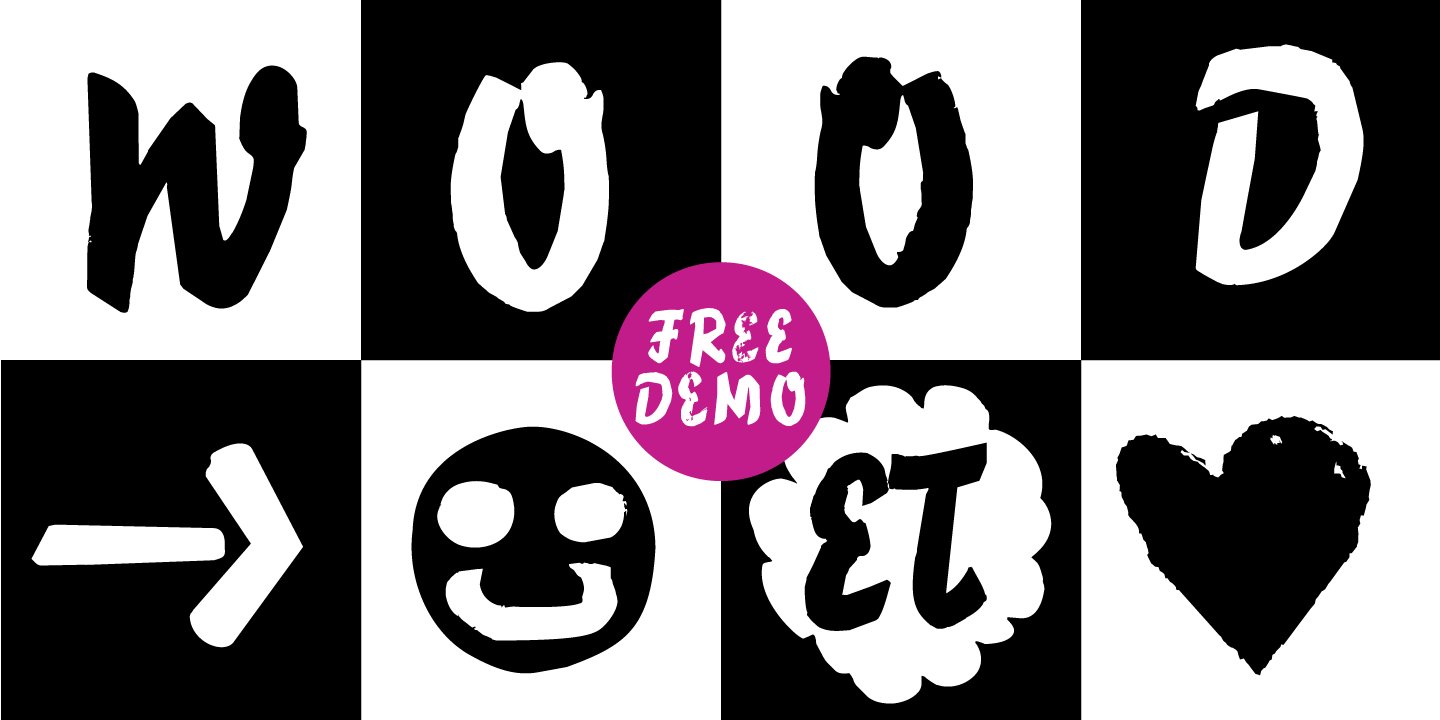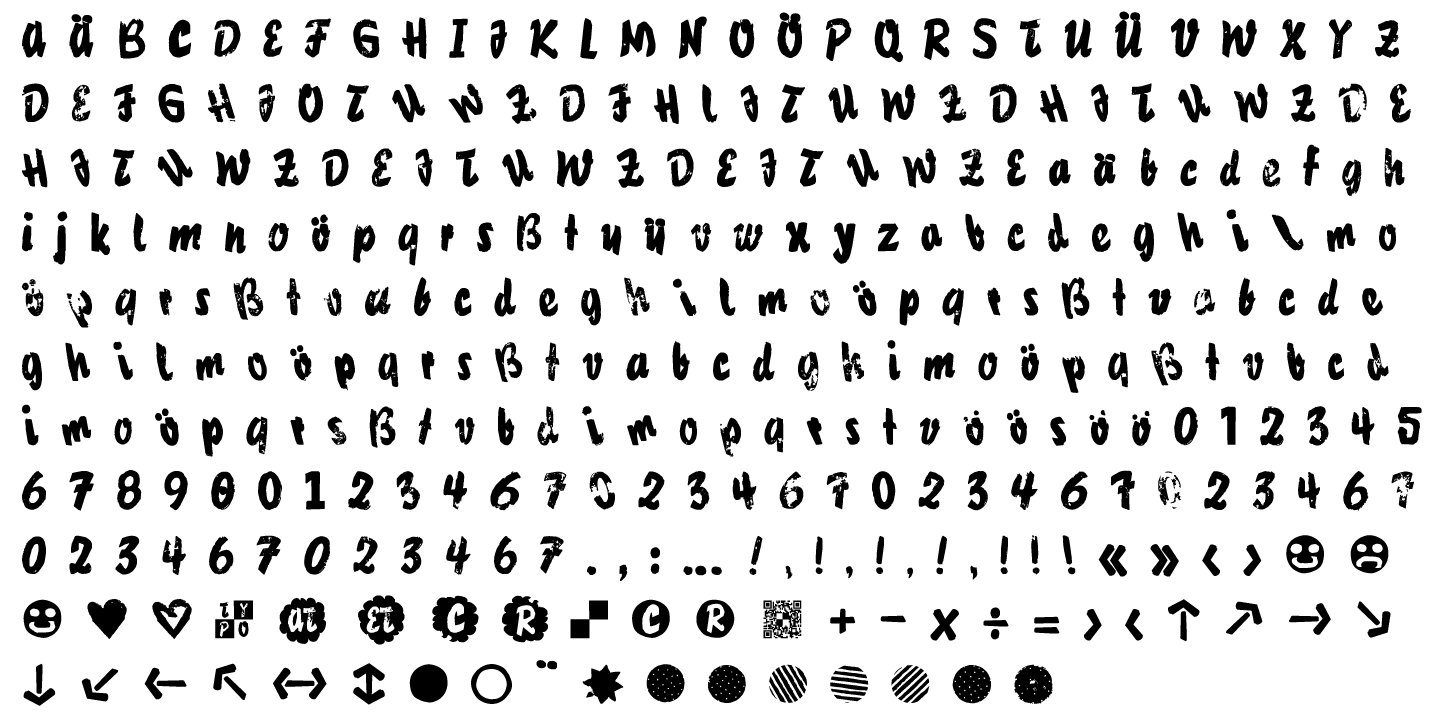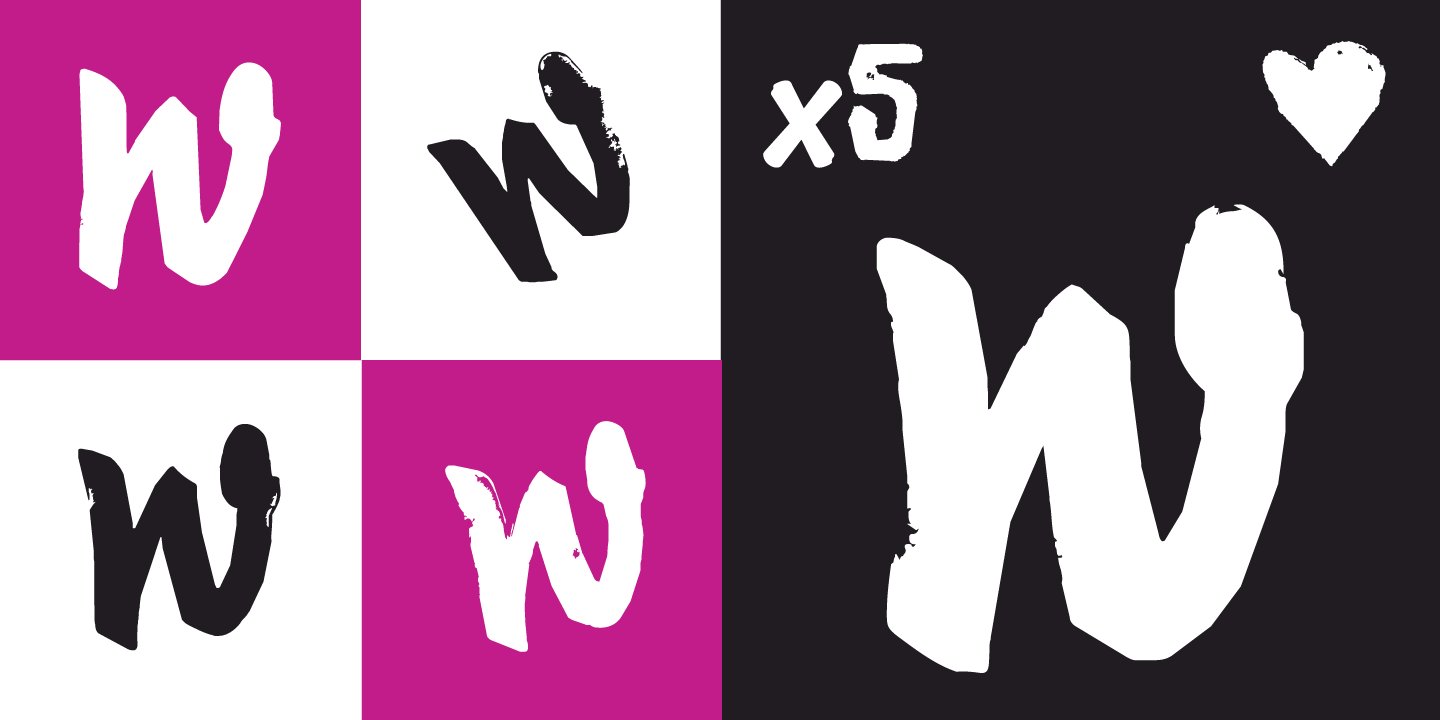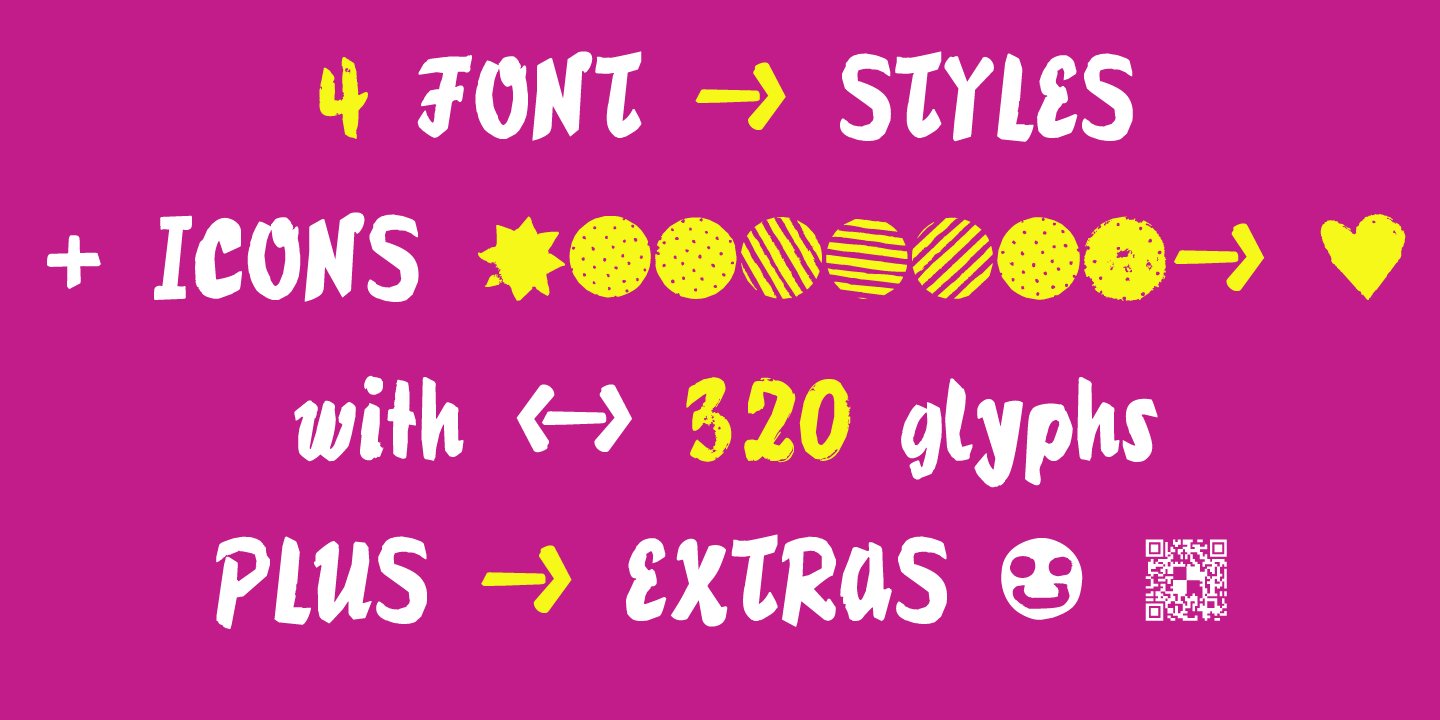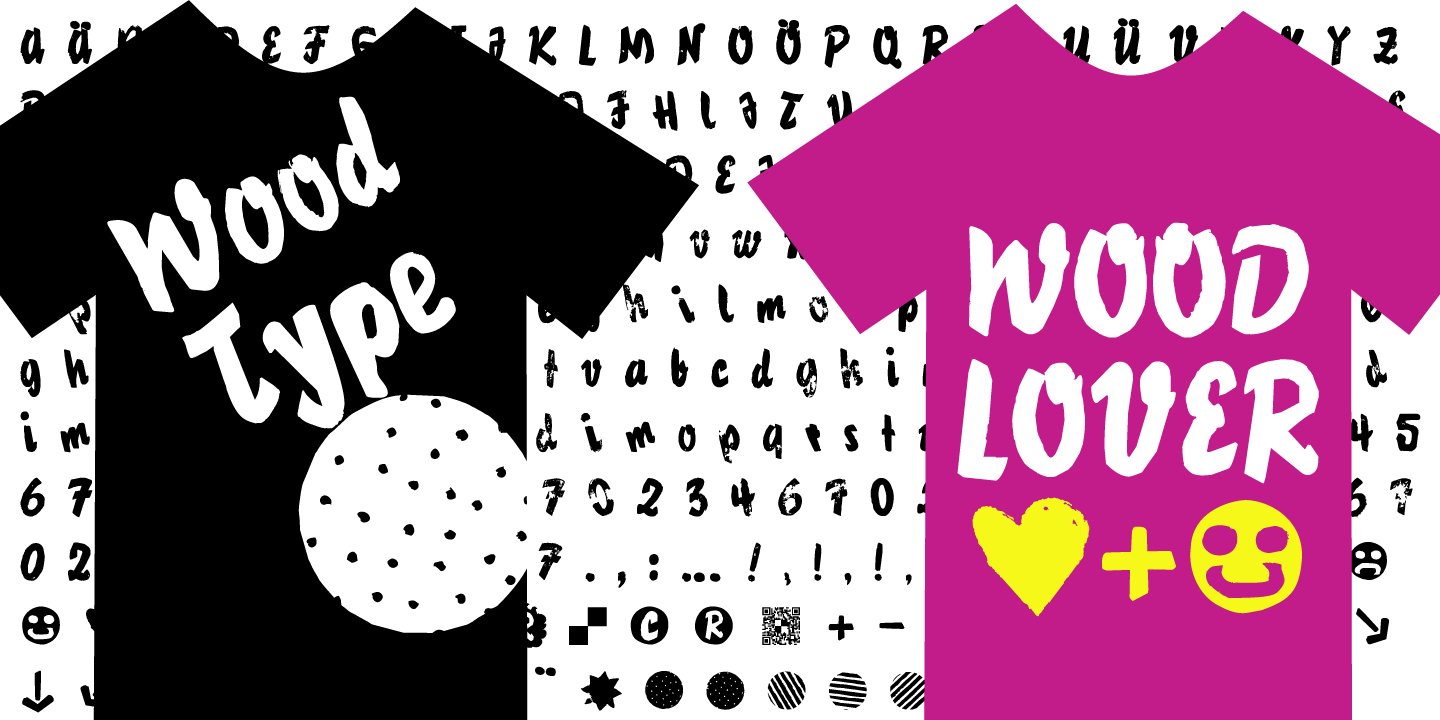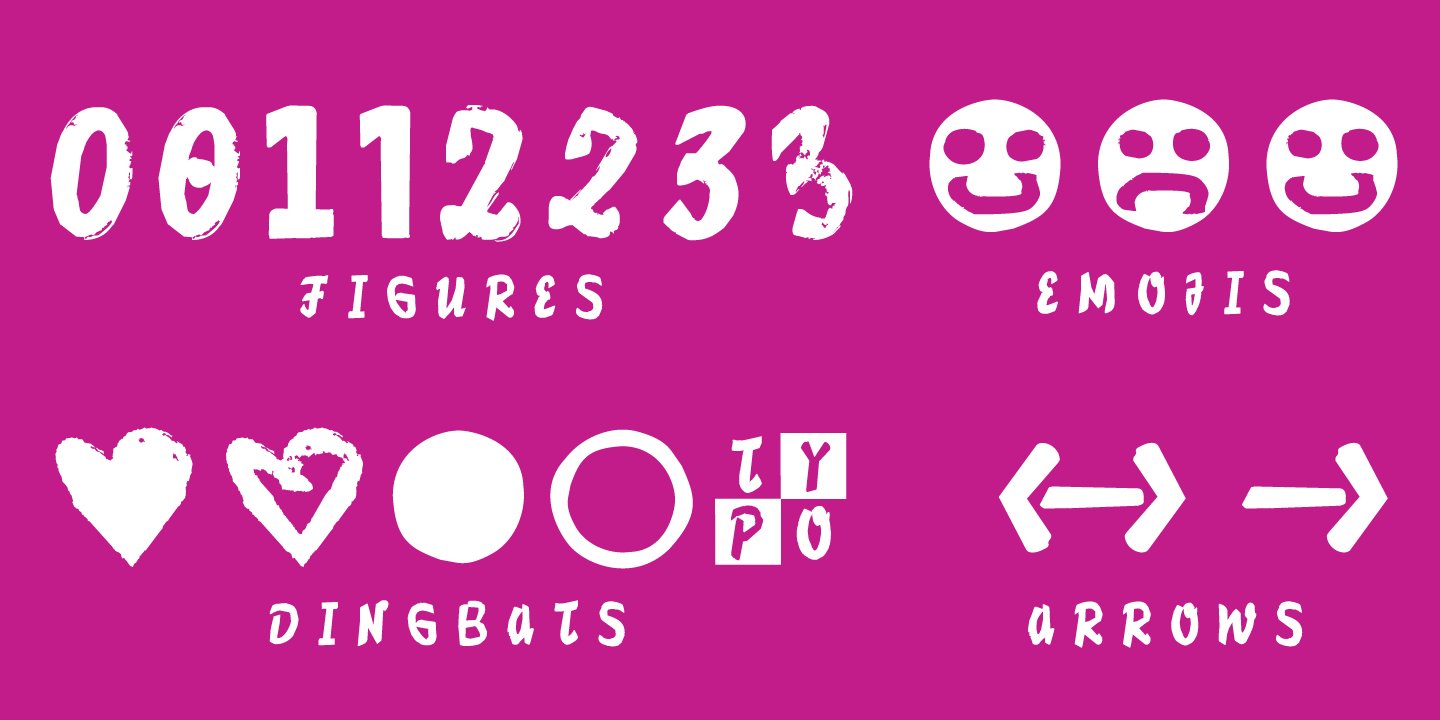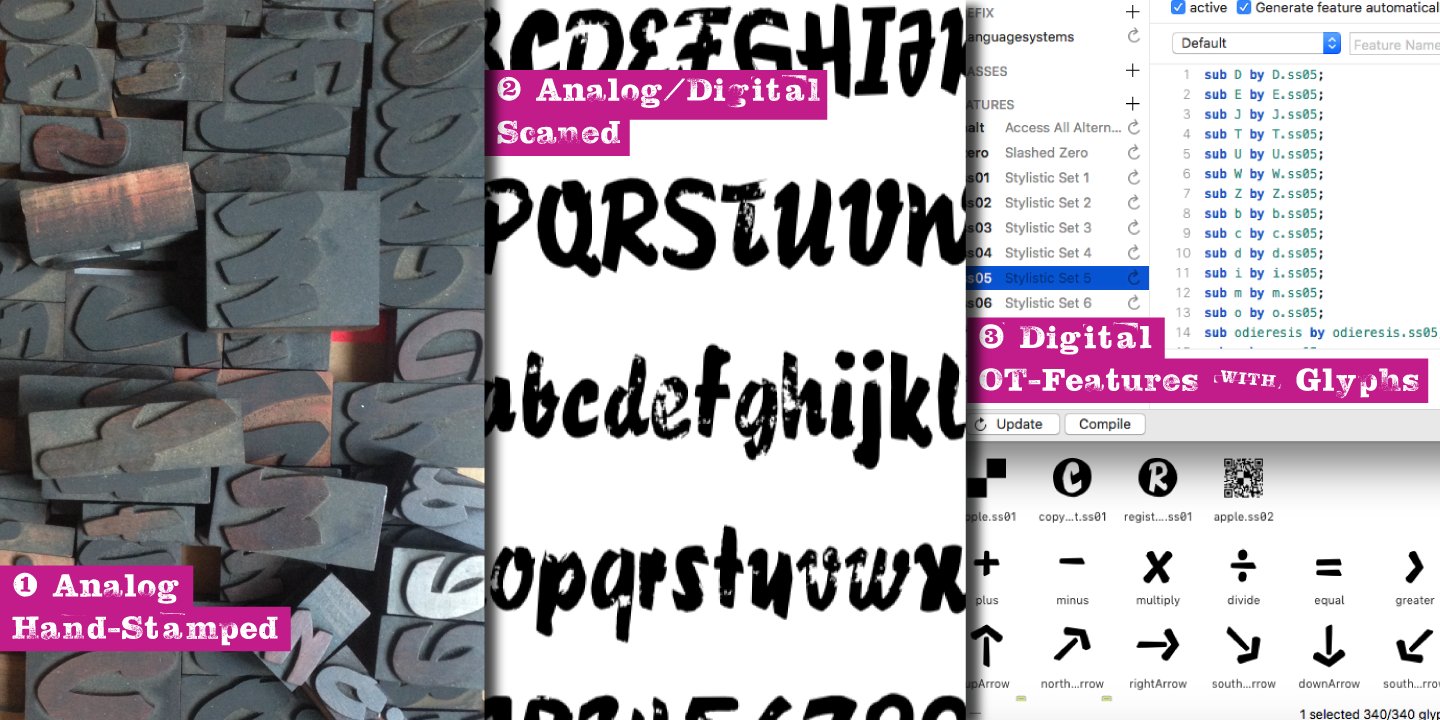
The typeface Wood Type DIY is designed from 2016–2022 for the font foundry Typo Graphic Design by Manuel Viergutz.
The display font based on the original wood letter from flea market. The font started from 50 wood letters (analog) and was finally digitalize and extended to 300+ glyphs (digital).
4 font-styles (Rough, Clean, Mix, Impact) with 320 glyphs incl. decorative extras like icons, arrows, dingbats, emojis, symbols, geometric shapes (type the word #LOVE for ❤ or #SMILE for ☺ as OpenType-Feature dlig) and stylistic alternates (9 stylistic sets).
For use in logos, magazines, posters, advertisement plus as webfont for decorative headlines. The font works best for display size.
■ Font Name: Wood Type DIY
■ Font Styles: 4 (Rough, Clean, Mix, Impact) + DEMO (with reduced glyph-set)
■ Font Category: Display for headline size
■ Glyph Set: 320 glyphs incl. extras like icons (decorative extras like arrows, dingbats, emojis, symbols)
■ Design Date: 2016–2022
■ Type Designer: Manuel Viergutz